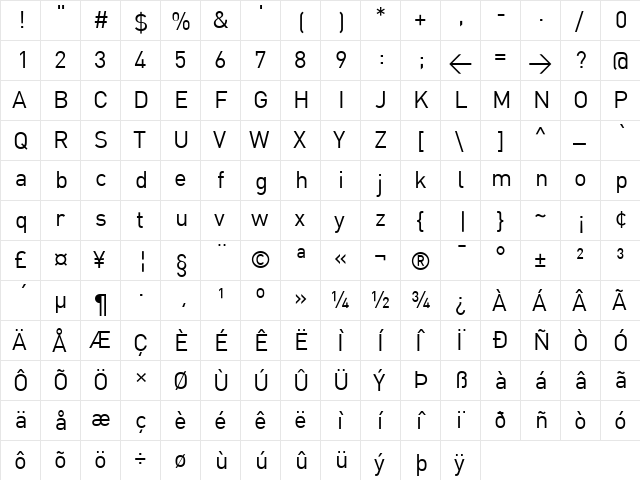
DIN Regular
Design Context for DIN Typeface
DIN is a composed and adaptable typeface that performs quietly and consistently across a wide range of design contexts.
Pro Tip: Pair DIN with a font of contrasting weight or personality to build a more expressive typographic hierarchy.